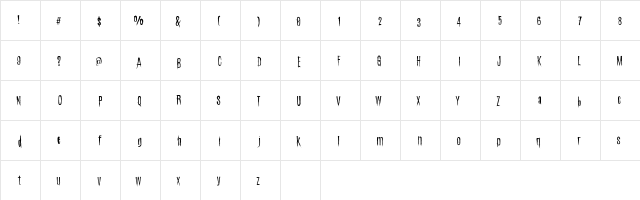
BathinginAcid Regular
| Foundry | Xerographer Fonts |
| Designer | Max Infeld Xerographer Fonts |
Design Context for BathinginAcid Typeface
BathinginAcid is a composed and adaptable typeface that performs quietly and consistently across a wide range of design contexts. Its slender proportions lend an understated elegance to any composition.